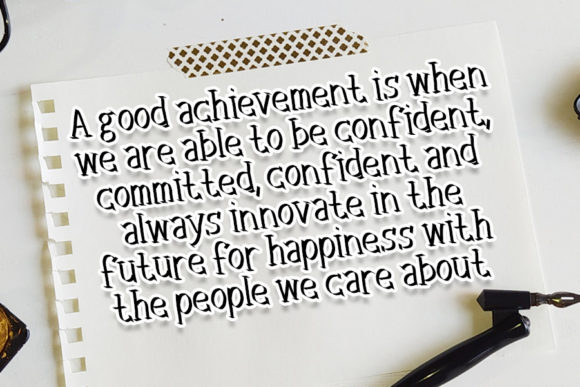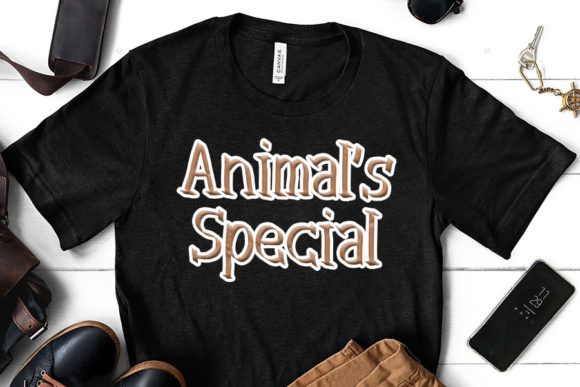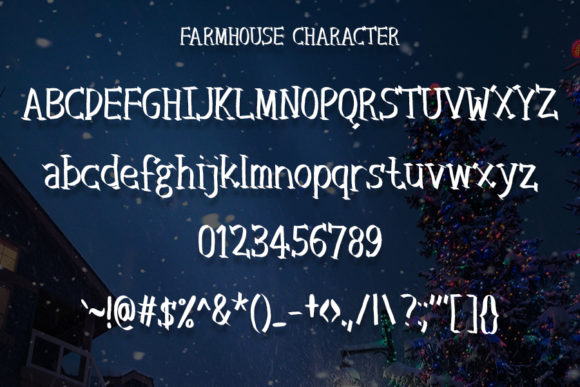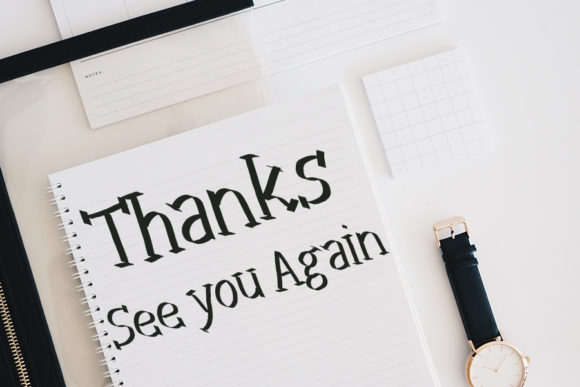
Introducing Farmhouse Font: The Perfect Blend of Nature and Trendiness
Are you a designer, crafter, or digital artist looking for a font that embodies the perfect balance of natural elegance and modern trendiness? Look no further than Farmhouse Font! This beautiful display font is designed to add a touch of rustic charm to your projects, while its clean and neat lines ensure it remains versatile and highly legible.
Farmhouse Font is a thoughtfully crafted display font that combines the warmth and coziness of natural elements with a modern, trendy twist. Its unique design makes it an excellent choice for a wide range of creative projects, from crafting and digital designing to presentations and greeting cards.
• Natural and Neat Design: Farmhouse Font boasts a natural, earthy feel that is balanced by clean and neat lines, making it perfect for projects that require a touch of rustic charm.
• Trendiness: This font features a modern, trendy twist that ensures it will make your projects stand out from the crowd.
• Versatility: Whether you’re working on a crafting project, digital design, presentation, or greeting card, Farmhouse Font is the perfect choice.
• High Legibility: Despite its decorative nature, Farmhouse Font remains highly legible, making it suitable for both headings and body text.
Uses of Farmhouse Font
Farmhouse Font’s versatility makes it an excellent choice for a wide range of creative projects. Here are some ideas to get you started:
• Crafting: Add a personal touch to your handmade crafts, such as knitting patterns, sewing projects, or scrapbooking.
• Digital Designing: Use Farmhouse Font in your digital designs, including social media graphics, blog posts, or website headers.
• Presentations: Add a touch of elegance to your presentations, making them more engaging and memorable.
• Greeting Cards: Create beautiful, one-of-a-kind greeting cards for special occasions.
Benefits of Using Farmhouse Font
By incorporating Farmhouse Font into your projects, you’ll enjoy several benefits, including:
• Unique and Eye-Catching Designs: Farmhouse Font’s distinctive design ensures your projects will stand out from the crowd.
• Easy to Read: The font’s high legibility makes it perfect for projects that require a balance of style and substance.
• Time-Saving: With Farmhouse Font, you can create professional-looking projects in no time, thanks to its clean and neat design.
To get the most out of Farmhouse Font, here are some tips to keep in mind:
• Experiment with Sizes: Play around with different font sizes to create visual interest and hierarchy in your projects.
• Pair with Other Fonts: Combine Farmhouse Font with other fonts to create a unique and eye-catching design.
• Use in Combination with Images: Pair Farmhouse Font with beautiful images or illustrations to add an extra layer of depth to your projects.
Farmhouse Font is a beautiful, versatile display font that offers the perfect blend of natural elegance and modern trendiness. Its clean and neat design makes it highly legible, while its unique style ensures your projects will stand out from the crowd. Whether you’re a designer, crafter, or digital artist, Farmhouse Font is an excellent choice for a wide range of creative projects.